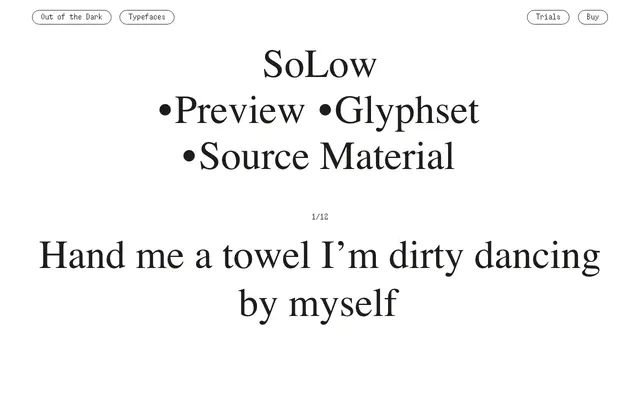
A two-style display typeface from Swiss independent foundry Out of the Dark, available in Regular and Italic.
SoLow is a compact release from Out of the Dark, offering just two styles: Regular and Italic. It sits within a catalogue of experimental and expressive typefaces from the Swiss foundry, suggesting a similarly unconventional character. The preview text alone conveys a casual, irreverent tone that points toward editorial and cultural use cases.
The name, the preview text, and the two-style offering (Regular and Italic) suggest a display-oriented typeface with a distinctive, expressive character rather than a workhorse text face.